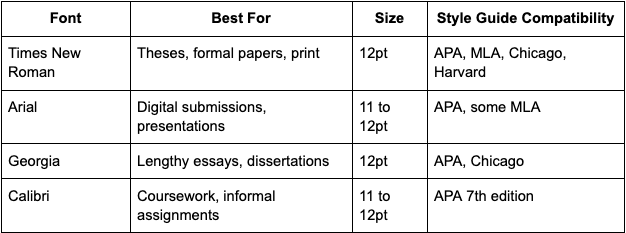
Best Fonts for Academic Essays and Papers | Full Guide
What Are the Best Fonts to Use in Academic Essays and Papers?
Nobody fails an essay because of a font. But plenty of students have watched their grades slip a few points because a professor squinted through 10 pages of Calibri Light at 11pt. It sounds petty. It isn't. Formatting speaks before words do.
After reviewing thousands of undergraduate submissions across institutions from Boston University to small liberal arts colleges in the Midwest, one thing becomes obvious: students overthink content and underthink presentation. They'll spend six hours on a thesis statement and fifteen seconds picking a font. That ratio needs adjustment.
Why Font Choice Actually Matters
Here's what professors won't say out loud. They're tired. A faculty member at a midsize university might grade 80 papers in a single weekend. Readability isn't a preference; it's survival. When someone asks what font should I use for my research paper, the honest answer is: whatever doesn't make the reader work harder than necessary.
Fonts carry psychological weight too. A 2012 study from MIT found that readers associated certain typefaces with trustworthiness and credibility. Comic Sans didn't perform well. Neither did overly decorative options. Essay editing services format academic papers using universally accepted fonts because presentation standards matter in professional and academic settings.
The best font for academic papers isn't about beauty. It's about invisibility. The typeface should disappear, letting arguments do the work.
The Classics: What Works and Why
Most style guides don't mandate a single font. They suggest families. APA 7th edition, for instance, allows Times New Roman, Calibri, Arial, and Georgia, all at 12pt. MLA is similarly flexible. Chicago style leans traditional but permits variation.
Still, some fonts dominate academic writing for good reasons:
Times New Roman remains the default at most institutions. Developed for The Times of London in 1931, it was designed for legibility in dense text columns. It's compact, serious, and universally installed. When comparing Times New Roman vs Arial for essays, Times wins on space efficiency. It fits more words per page without looking cramped.
Arial is the sans serif alternative. Cleaner on screens, slightly wider on paper. It works well for shorter assignments or digital submissions. The University of Oxford's accessibility guidelines actually recommend sans serif fonts for students with dyslexia. Any reputable fast essay writing service will use Arial or Times depending on submission format requirements.
Georgia is underrated. Designed by Matthew Carter in 1993 specifically for screen readability, it holds up beautifully in printed essays too. Slightly more character than Times, but still professional.
Calibri became Microsoft Word's default in 2007. It's modern, clean, and acceptable for most coursework. However, some traditional departments, especially in law and humanities, still view it as too casual for formal submissions.
Academic Essay Font Size and Style: Quick Reference
The font for college essay submissions follows the same logic. When in doubt, check the syllabus. When the syllabus says nothing, default to Times New Roman at 12pt with double spacing. Nobody ever lost points for being conventional.
Fonts to Avoid
Some choices signal inexperience immediately:
- Comic Sans never appropriate for academic work
- Papyrus decorative fonts have no place in research
- Courier New acceptable in specific fields but looks dated
- Anything script based unreadable and unprofessional
- System fonts below 11pt accessibility failure
A Harvard study on academic document design noted that unusual font choices can unconsciously bias readers before they finish the first paragraph. First impressions form fast.
It's also worth noting that professors often notice font manipulation. Stretching margins, bumping font size to 12.5pt, or switching to Courier to fill page requirements rarely goes undetected. These tricks have been around since Word 97. Instructors have seen them all. A student at Stanford once got marked down specifically for using Courier New to inflate a five page minimum. The professor left a comment: "Nice try."
Pick Smart, Then Forget About It
Typography is a quiet skill. Students who master it don't stand out. They simply avoid standing out for the wrong reasons. The goal is to let ideas breathe on a page that doesn't fight back. If you're using AI to draft sections, run it through GoHumanize before submitting. Professors read a lot of essays. They notice when the prose sounds like no human actually wrote it.
Pick a font that disappears. Match it to the style guide. Then get out of your own way.